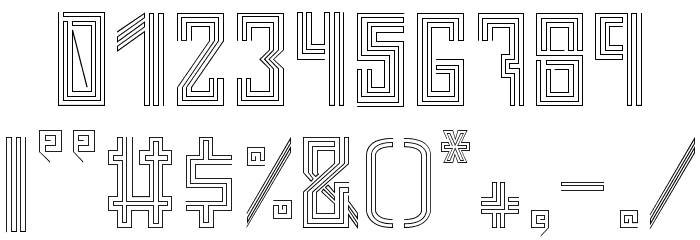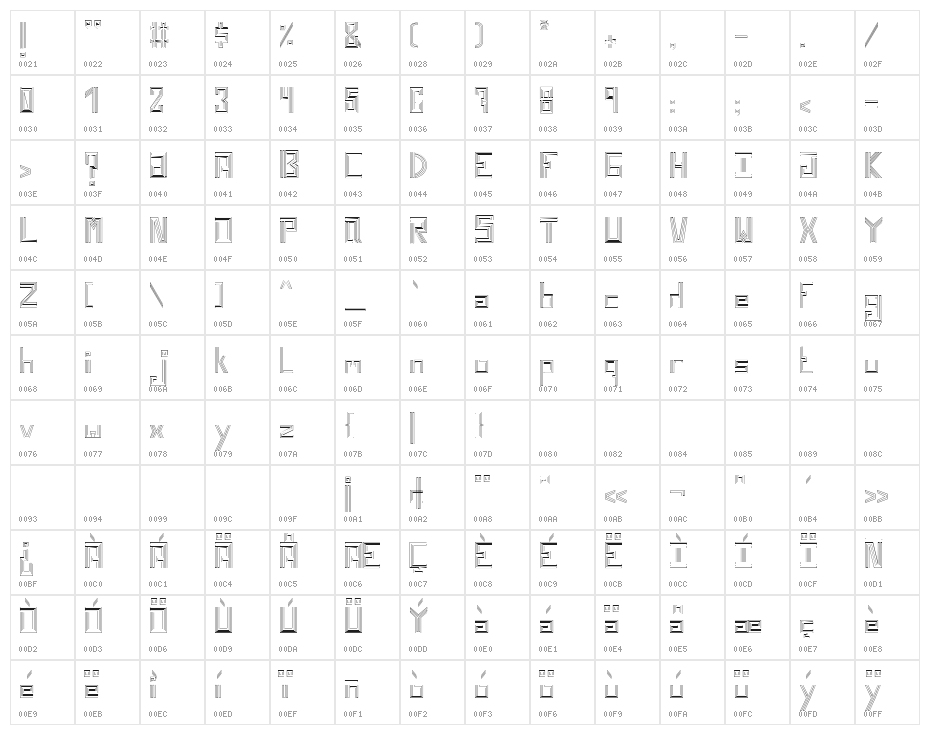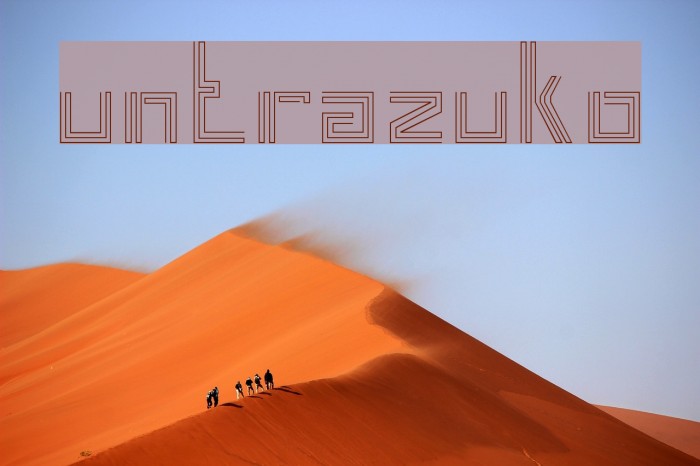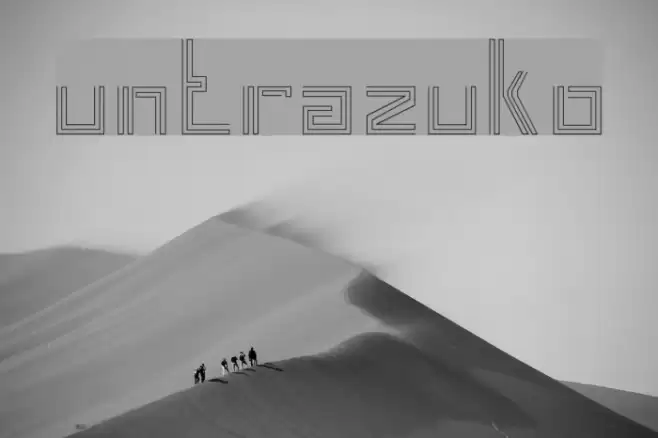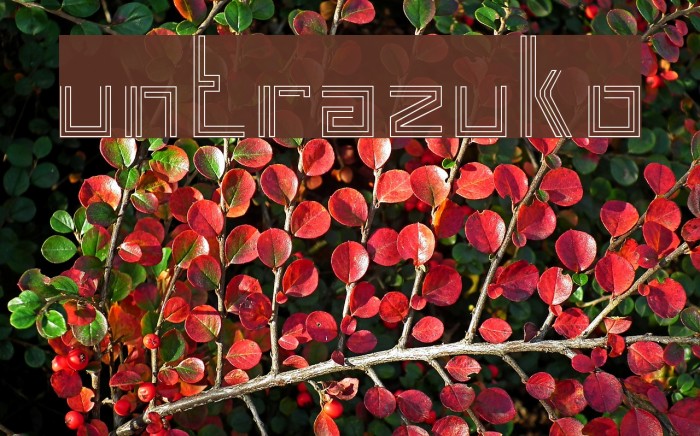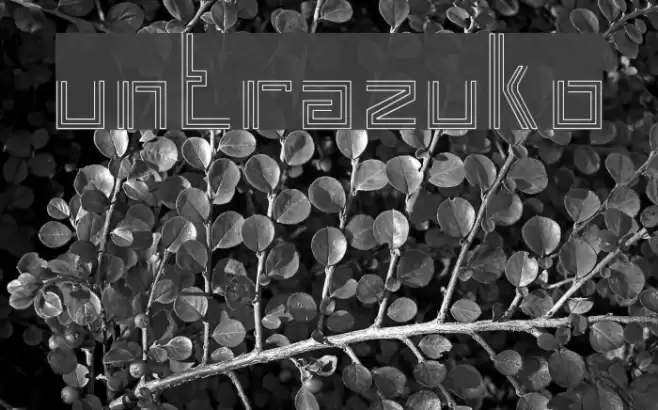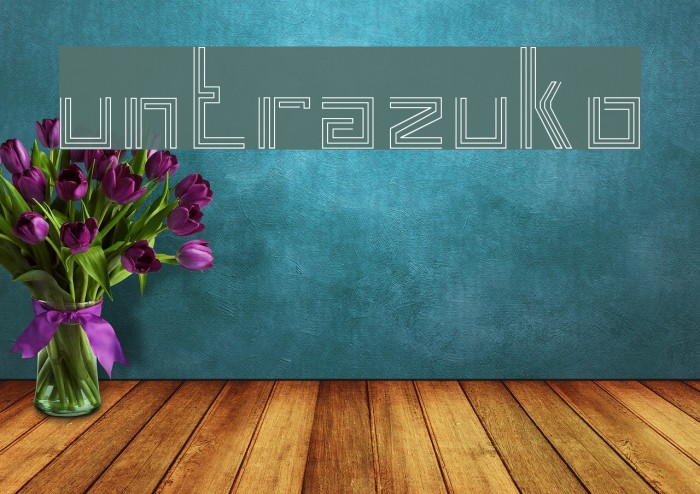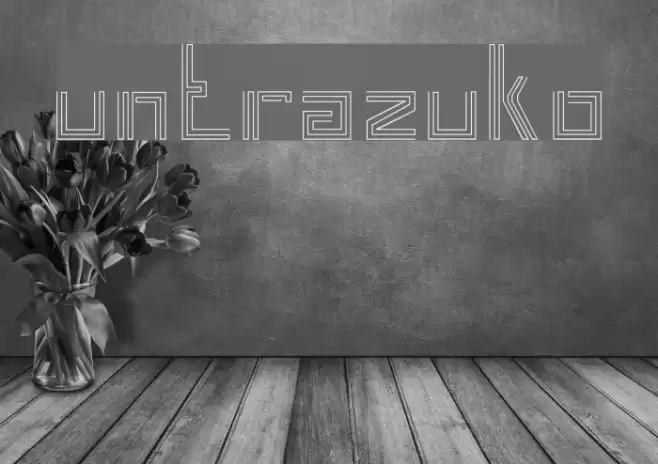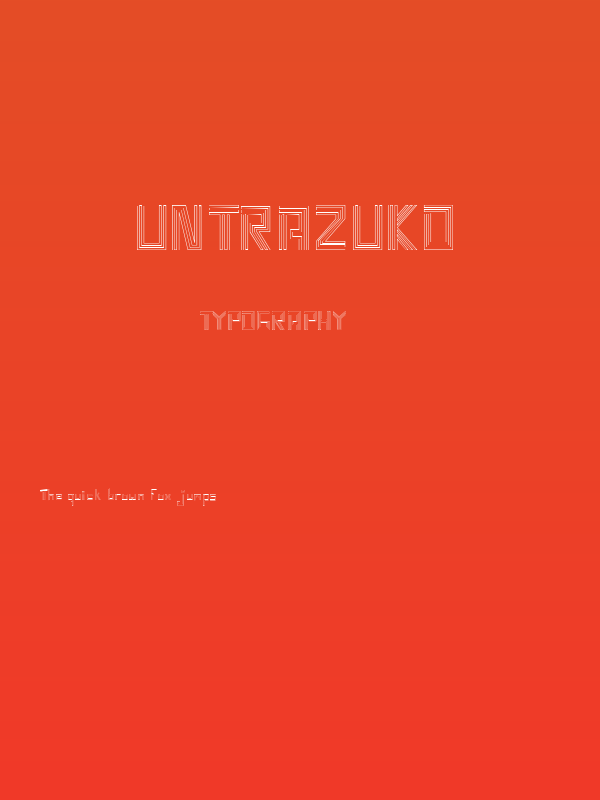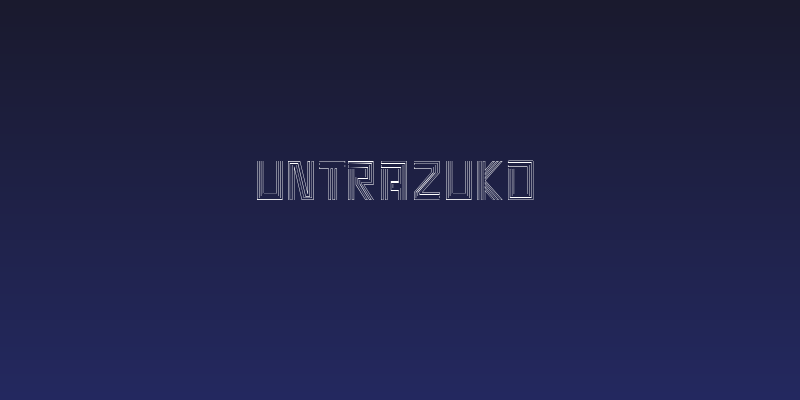
untrazuko Font
untrazuko Description
This font features a unique, geometric design with a futuristic and digital aesthetic. Each character is constructed with multiple parallel lines, creating a layered effect that adds depth and complexity. The uppercase and lowercase letters maintain a consistent style, with sharp angles and straight lines dominating the design. Numbers and special characters follow the same pattern, ensuring uniformity across the entire set. The font's intricate line work and modern appearance make it stand out, offering a visually striking option for creative projects.
| Proposed Projects | Ideal for tech-themed designs, digital art projects, modern branding, and futuristic posters. |